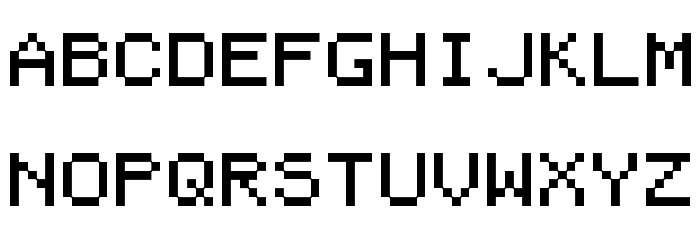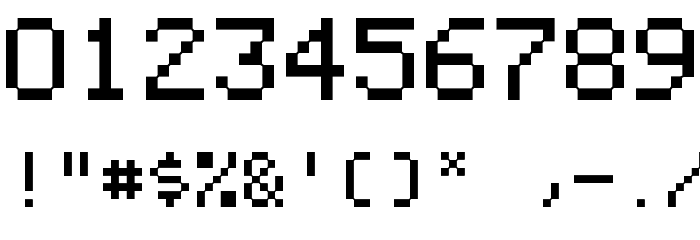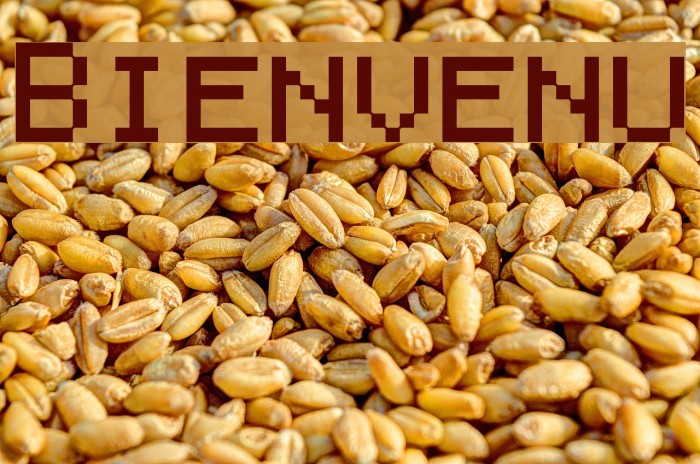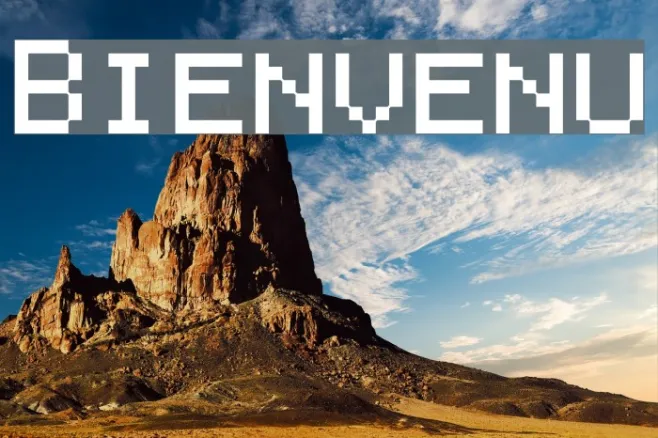
Bienvenu Font
This font features a pixelated, blocky design reminiscent of early digital displays and video game graphics. Each character is composed of a grid-like structure, giving it a distinctly retro and technological appearance. The uniformity in height and width across all characters contributes to a cohesive and consistent look. The font maintains a monospaced style, ensuring equal spacing between each character, which is ideal for coding or digital interfaces. Its geometric simplicity and lack of curves make it highly legible, even at smaller sizes. The font's aesthetic is both nostalgic and modern, appealing to those looking to evoke a sense of digital nostalgia or futuristic minimalism.
A pixelated, monospaced font with a retro digital aesthetic.
- Proposed Projects: Ideal for retro video games, digital art projects, coding interfaces, and tech-themed designs.
- Category: Monospaced
- Overall Style: Retro, Digital
- Use Case: Digital interfaces, Coding, Retro-themed projects